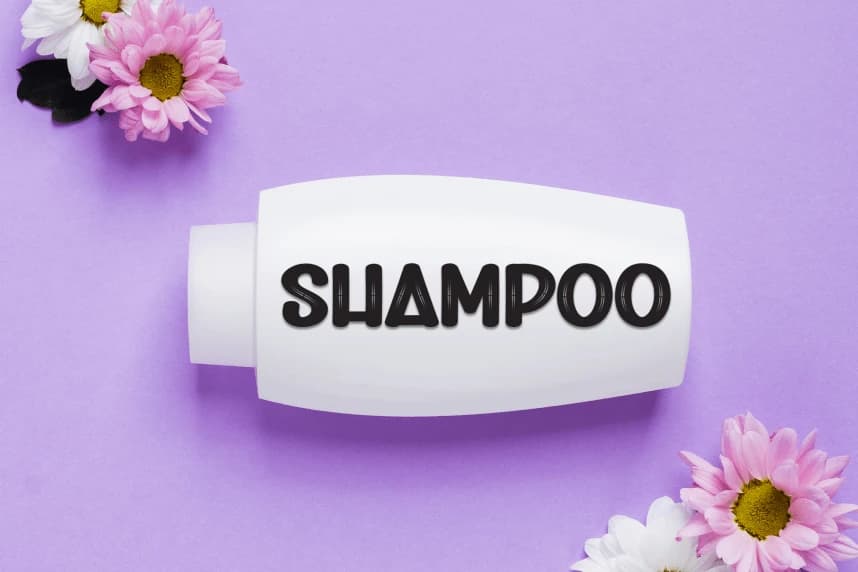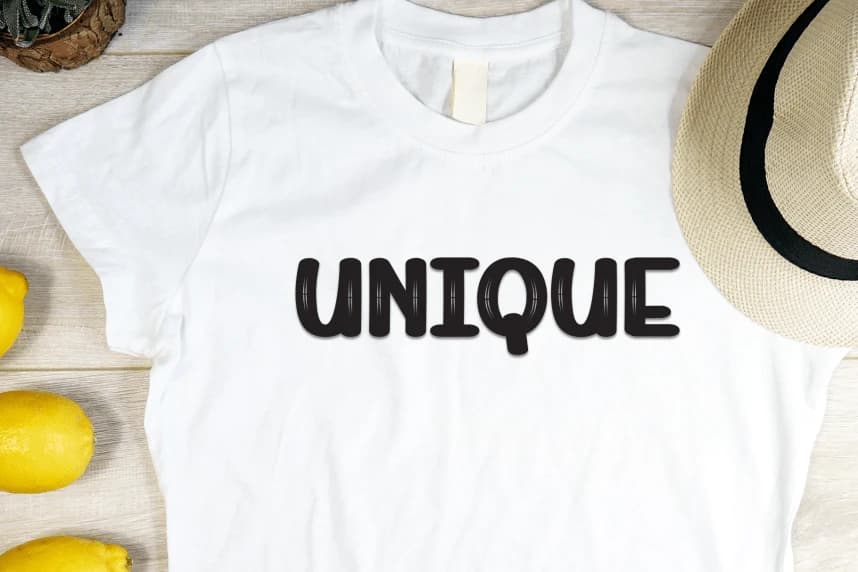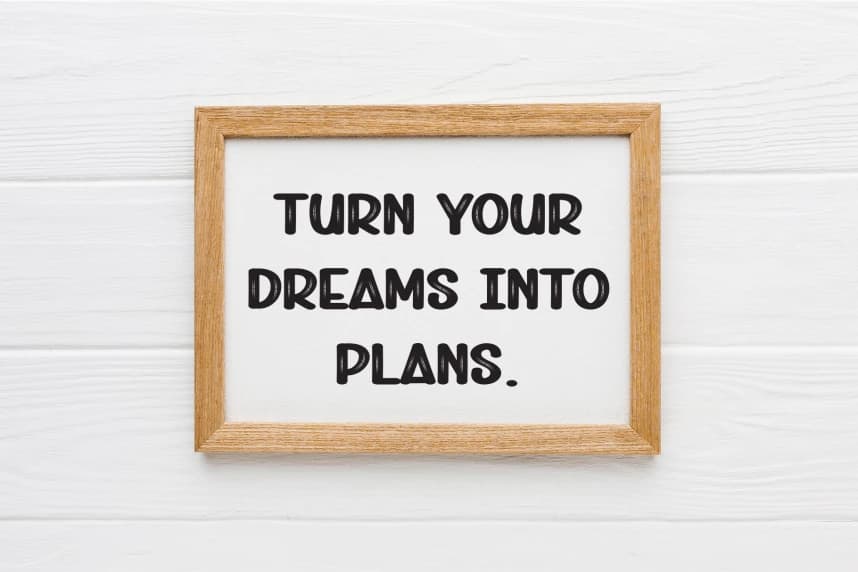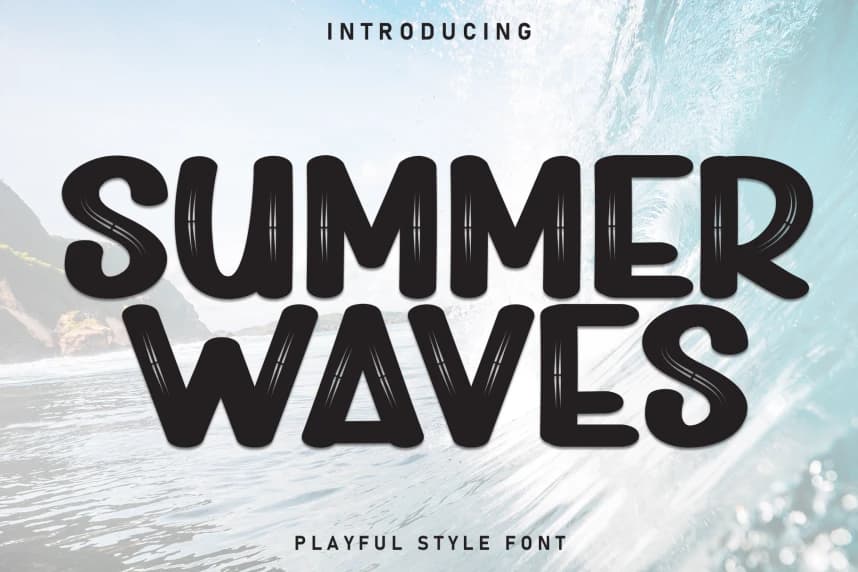
Summer Waves display Font
Summer Waves display Font is a sweet and friendly handwritten display font. Cute and fun, this font is ideal for writing wedding invitations, cards, or